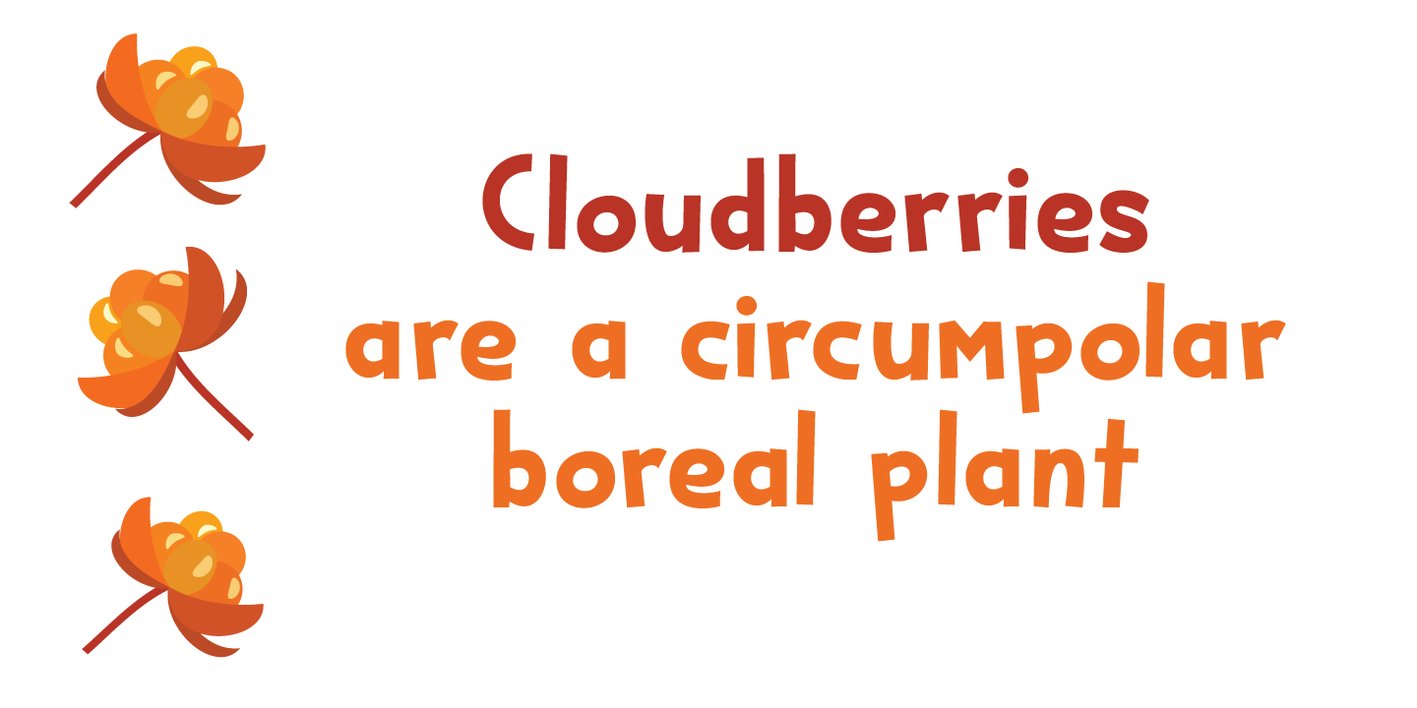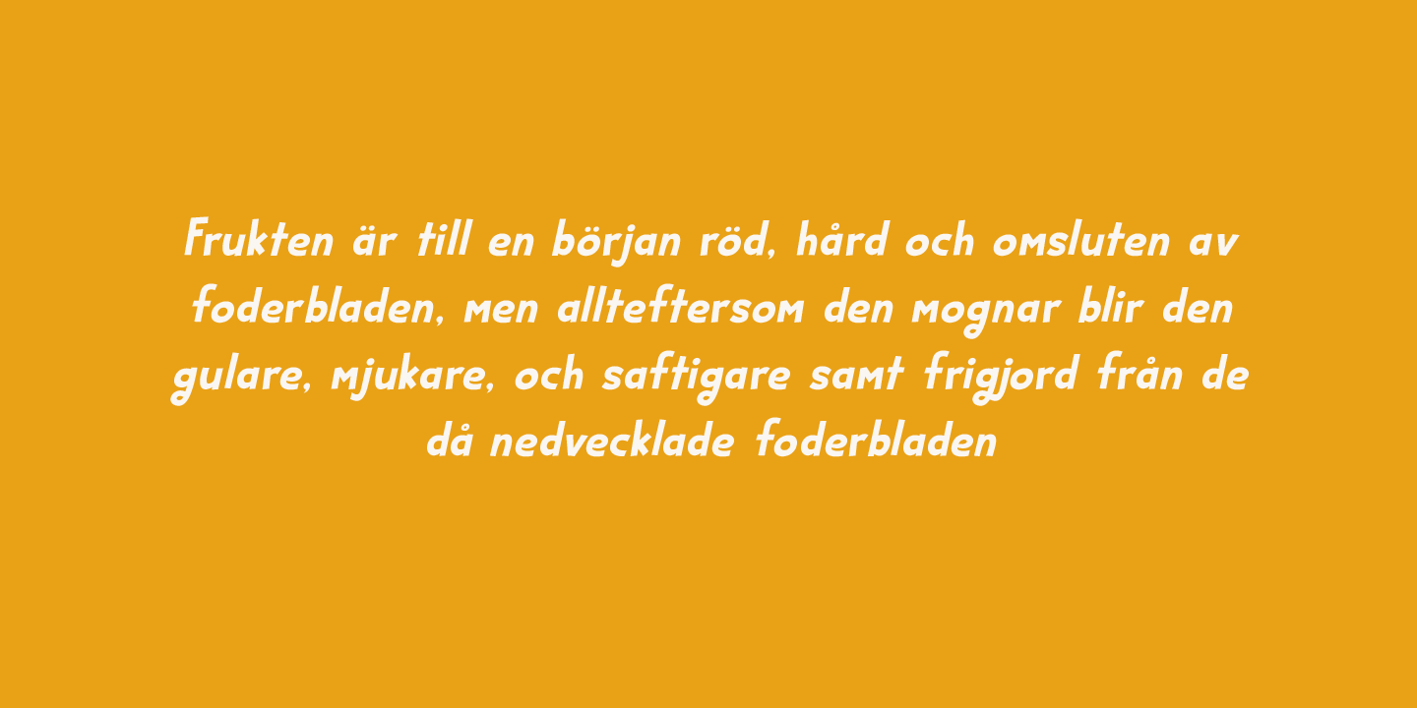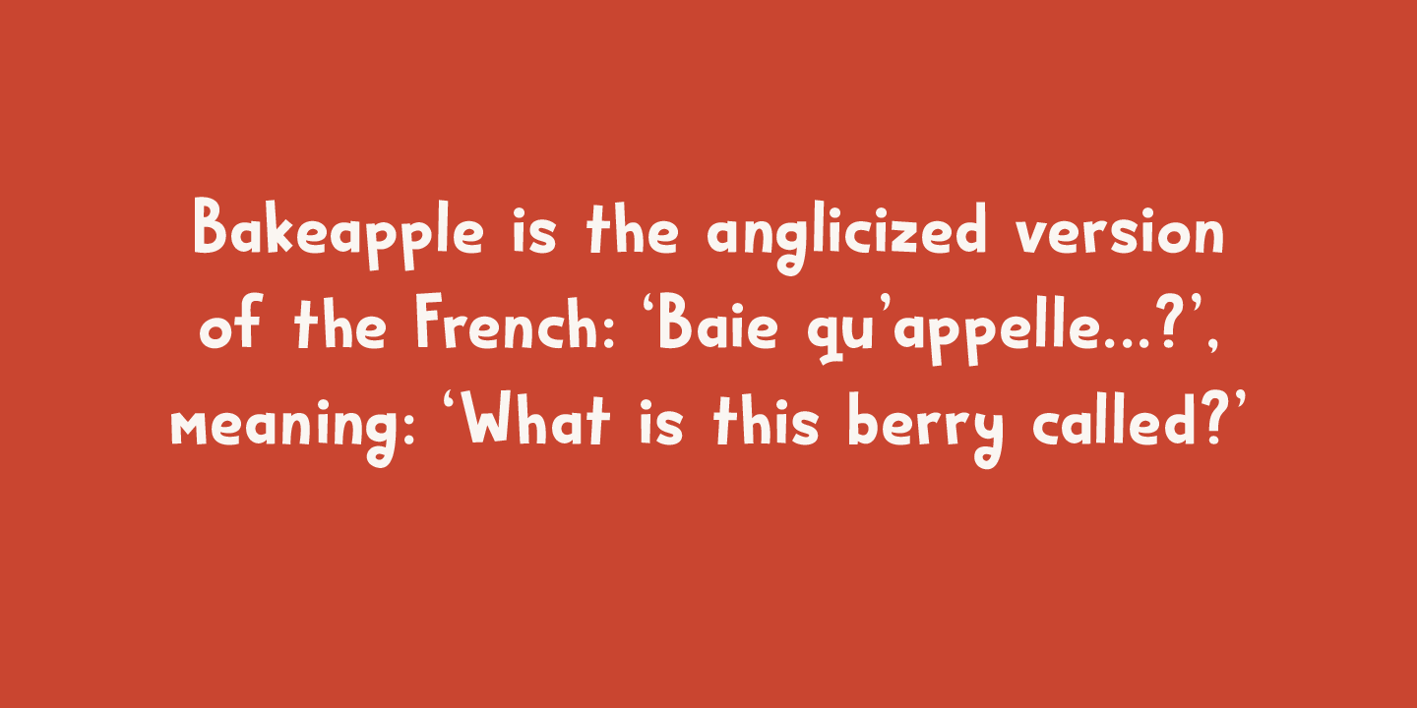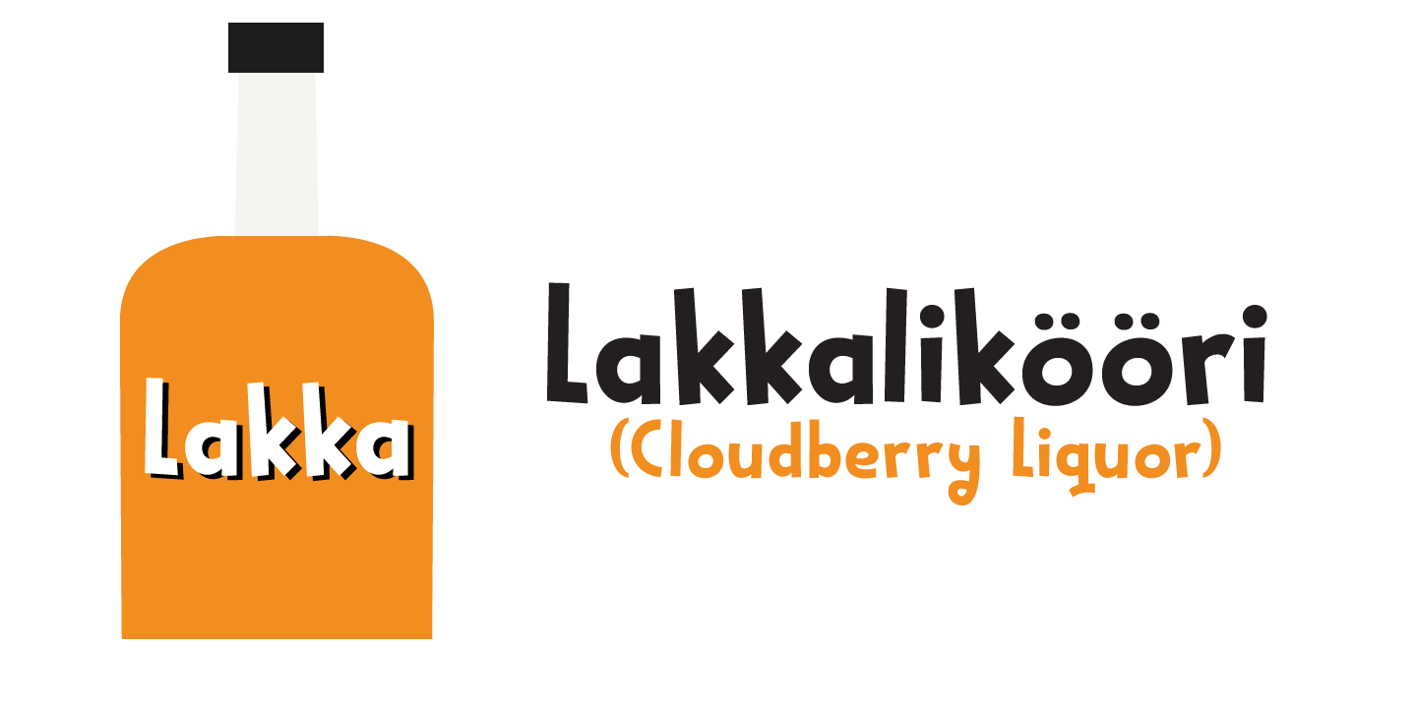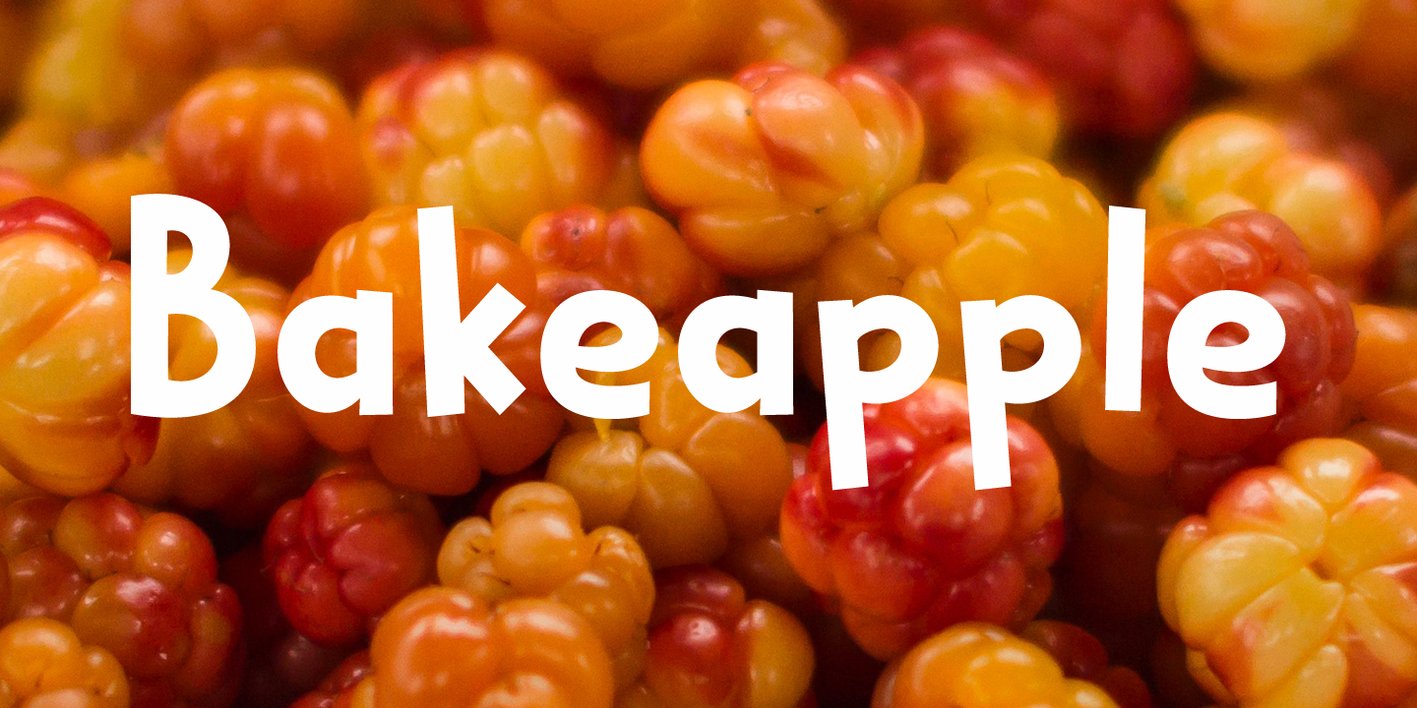
Bakeapple Font
Bakeapple Font is perfect for organic bakery branding, rustic farm market signage, artisan food packaging, natural ingredient labels, wholesome cooking magazines, countryside tourism materials, harvest festival promotions, farm-to-table restaurant menus, homemade goods marketing, and authentic rural lifestyle communications.
What makes Bakeapple Font so exciting is its delightful embodiment of rustic charm and natural sweetness that captures the wholesome appeal of countryside living and artisanal food traditions through warmly crafted typography. This naturally inspired typeface features organic letterforms with farm-fresh proportions and harvest-influenced character variations that immediately convey authenticity, wholesomeness, and the irresistible appeal of homemade goodness. The font's rustic construction and countryside aesthetic create an instant sense of natural comfort and artisanal quality, making it ideal for projects that need to communicate farm-fresh authenticity, natural ingredients, and the soul-nourishing power of traditional food culture to audiences seeking genuine organic experiences and meaningful connections to rural heritage.
The Bakeapple Font family typically includes multiple harvest weights and rustic styles, often featuring light, regular, and bold variations along with naturally flowing italic versions. Farm-inspired font collections frequently offer additional organic elements such as fruit symbols, harvest ornaments, and countryside decorations that enhance the authentic rural aesthetic and provide designers with comprehensive tools for creating genuinely wholesome and naturally appealing communications.
The natural nature of Bakeapple Font makes it particularly effective for targeting demographics that value organic living and authentic food experiences in their dietary and lifestyle choices. Organic marketers and farm-to-table professionals will find this font especially valuable for materials that must establish immediate natural credibility and connect with audiences seeking authentic organic experiences and meaningful rural cultural connections.
What sets Bakeapple Font apart is its ability to convey rustic authenticity while maintaining the warmth necessary for effective food and hospitality communication. This balanced characteristic makes it suitable for both traditional farming applications and contemporary organic contexts where projecting natural heritage and maintaining modern appeal must work together harmoniously.
Professional designers recognize that Bakeapple Font brings invaluable organic credibility to projects across industries including natural food production, organic farming, rural tourism, and authentic countryside experiences. Its rustic character and natural appeal make it essential for organizations whose mission centers on celebrating organic living, promoting sustainable agriculture, and creating meaningful connections between traditional farming values and contemporary natural lifestyle appreciation.
The thoughtfully crafted natural authenticity of Bakeapple Font ensures consistent organic messaging across all farm-focused communication applications while honoring the fundamental importance of natural ingredients and traditional farming heritage in contemporary organic culture.